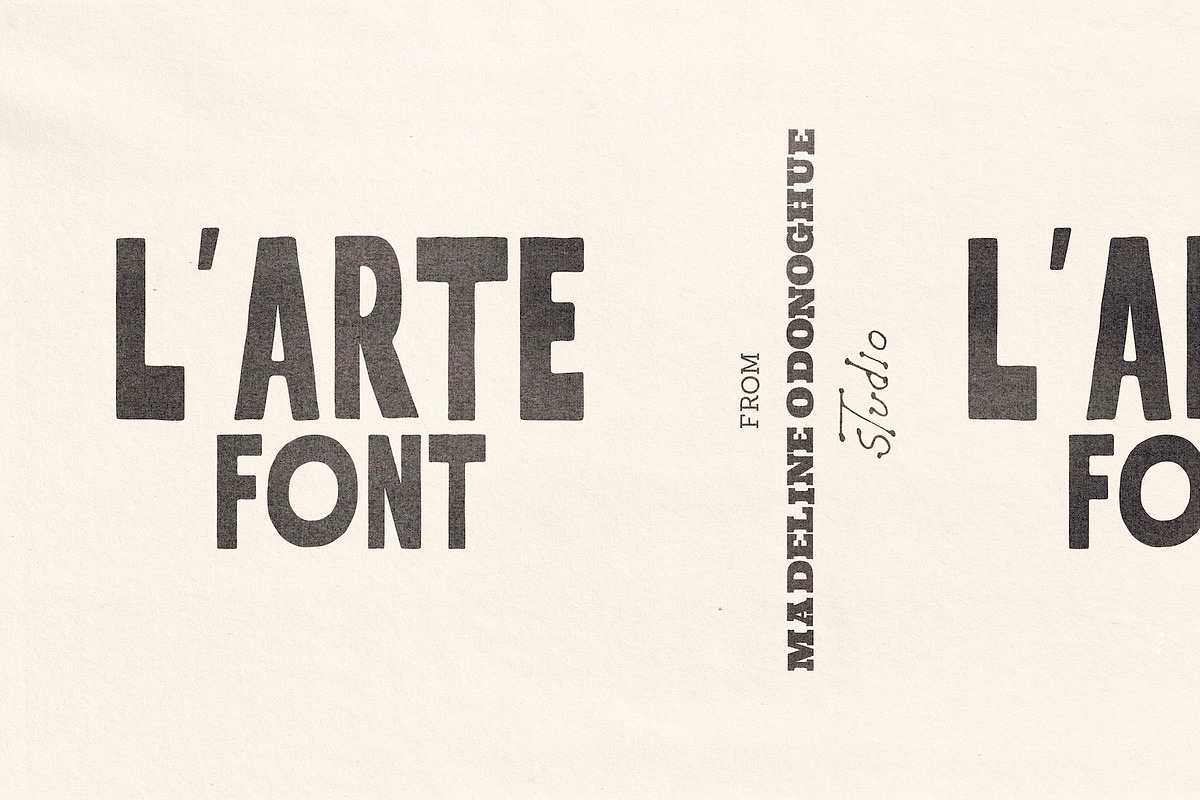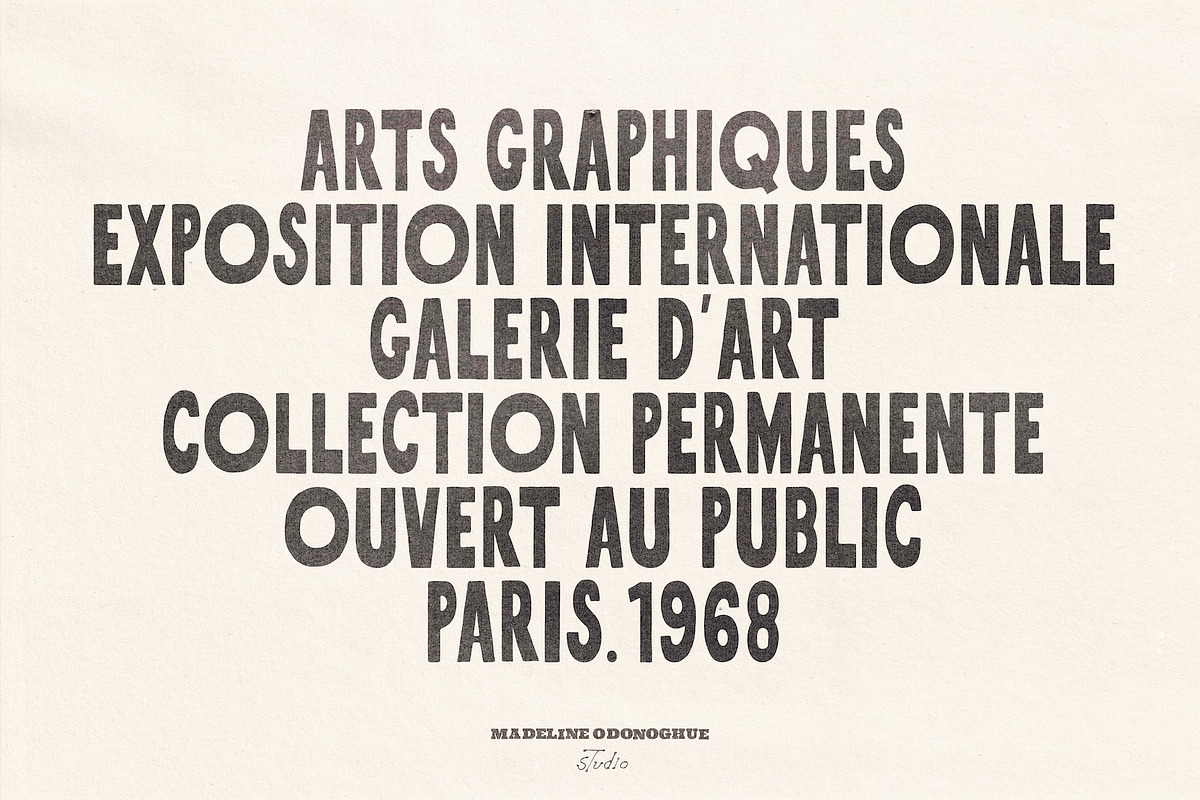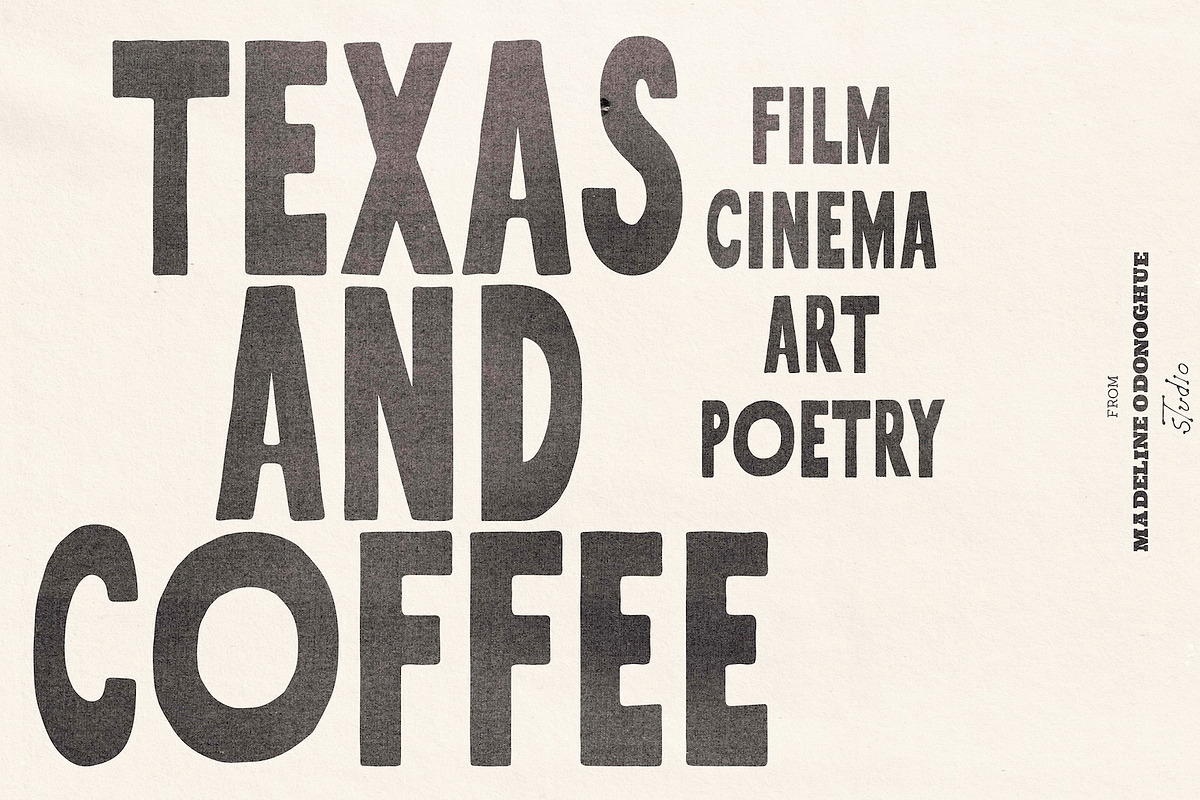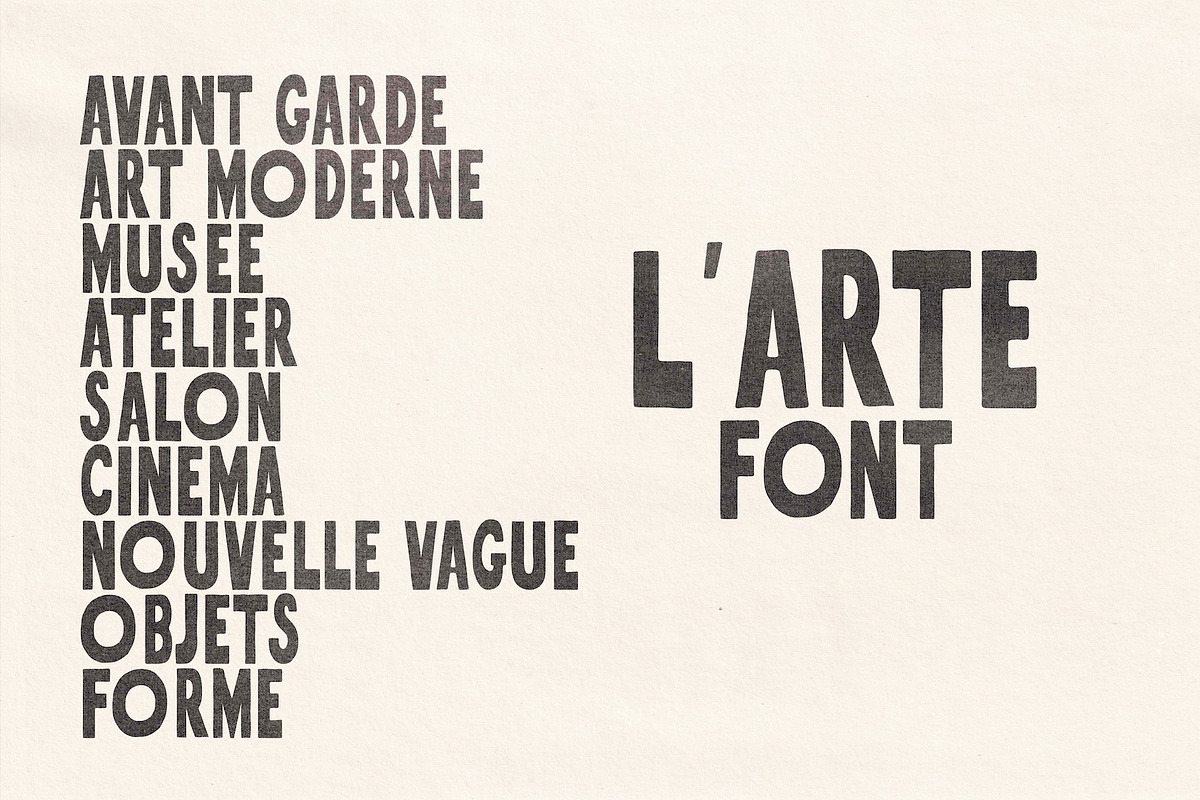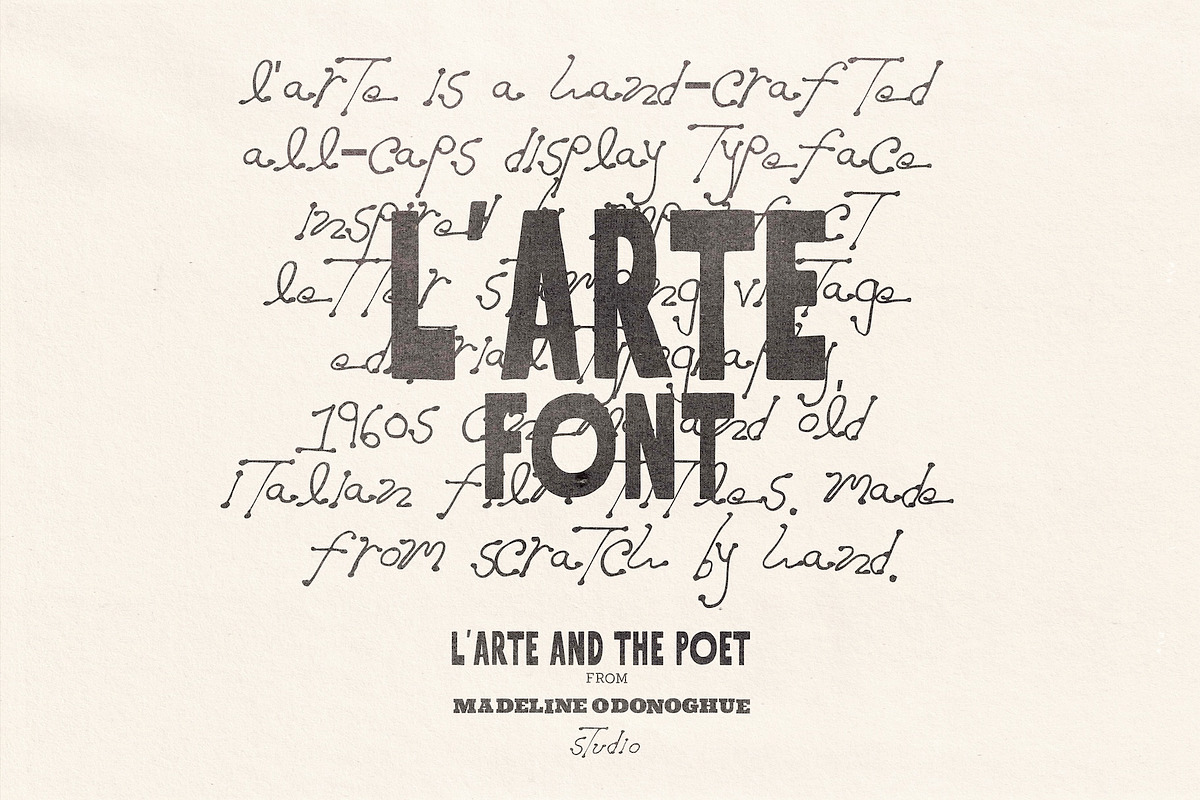
L’ARTE – Editorial Display Font
L’ARTE is a hand-crafted all-caps display typeface inspired by 1960s cinema, old Italian film titles, vintage editorial typography, exhibition graphics and imperfect letter stamping.
Tall, narrow and deliberately irregular, L’ARTE takes classic condensed display lettering and loosens it up. Widths shift, curves wobble and proportions don’t always agree, giving the type the feeling of something stamped, printed or assembled by hand rather than perfectly constructed on screen.
The result sits somewhere between an old film title, vintage art magazine and forgotten exhibition catalogue — bold, graphic, editorial and slightly strange.
Numbers follow the same imperfect approach, making them perfect for dates, editions, issue numbers and catalogue-style typography — 1966, NO.03, VOL.2.
Inspired by the atmosphere of mid-century European print and Italian cinema, L’ARTE is made from scratch by hand and does not reproduce any single historical typeface.
PERFECT FOR
Editorial & magazine design
Posters & exhibition graphics
Film titles & cinematic artwork
Fashion & photography
Art books & catalogues
Album covers & music artwork
Branding & packaging
Galleries, studios & cultural projects
A–Z uppercase letterforms
Numbers 0–9
Very basic punctuation
L’ARTE is an experimental all-caps display font, designed primarily for headlines, titles, posters, branding and short pieces of expressive typography rather than long passages of text.
The uneven widths, imperfect curves and irregular proportions are intentional and are part of the character of the typeface.
Made from scratch by hand.